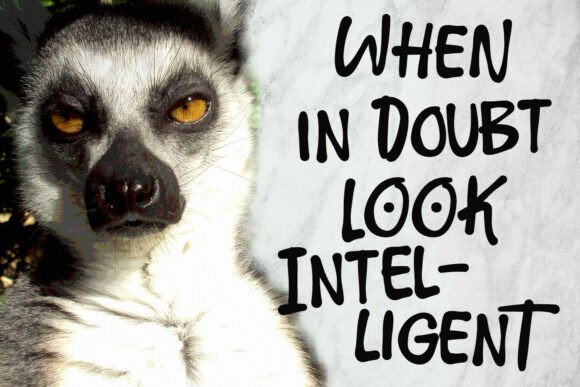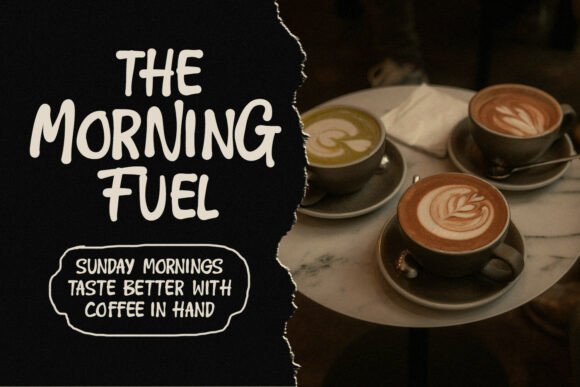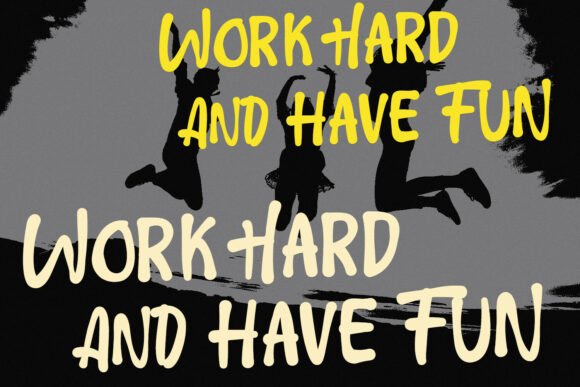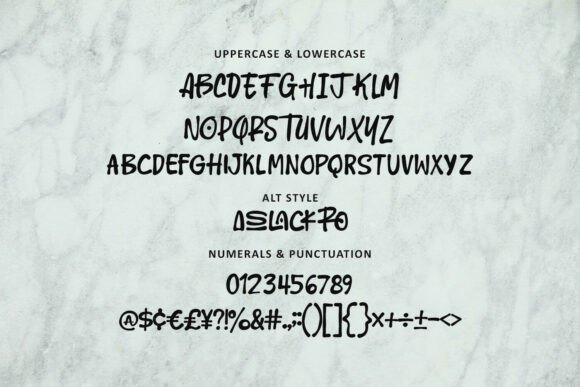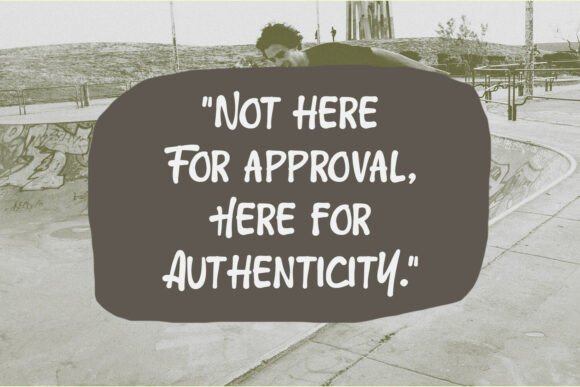
Introduction to Pack Roslan Font
Have you ever stared at a blank design canvas, waiting for inspiration to strike? For designers, those moments of creative block can be frustrating, but they can also be opportunities to discover something new and exciting. For me, that moment came when I stumbled upon the Pack Roslan Font – a playful display font that’s been a game-changer for my creative projects.
Designed by the talented team at Maulana Creative, Pack Roslan Font is a high-quality design resource that’s perfect for anyone looking to add a touch of whimsy to their work. With its bold, hand-drawn letterforms and quirky curves, this font is ideal for creative branding, children’s projects, packaging, posters, and social media graphics.
Key Features of Pack Roslan Font
- High-quality design resource with a transparent background, ideal for creative projects that require a touch of elegance.
- Includes a collection of fonts with unique characteristics, such as custom lettering and ornate details, adding a personal touch to any design.
- Each font is carefully crafted with high resolution (up to 300 DPI), ensuring that they remain crisp and clear even at larger sizes.
- Perfect for designers and artists working on projects that require a mix of modern and traditional elements, such as branding, typography, and graphics.
Honest Review: Pack Roslan Font
I recently had the chance to work with the Pack Roslan Font, and I must say it was a pleasant experience. As a designer, I’m always on the lookout for high-quality design resources that can elevate my creative projects.
- ✨ Transparency: The font comes with a transparent background, which makes it super easy to work with and combine with other design elements.
- ✨ Customization: Pack Roslan Font offers a wide range of styles and weights, allowing me to customize it to fit the specific needs of my project.
Tips for Getting the Most Out of Pack Roslan Font
Use the high-quality Pack Roslan Font for headings, titles, and other prominent text elements. Take advantage of the transparent background feature to create visually appealing designs.
Use the Pack Roslan Font for creative projects such as logos, brochures, and social media graphics. The font’s versatility makes it suitable for a wide range of design applications.